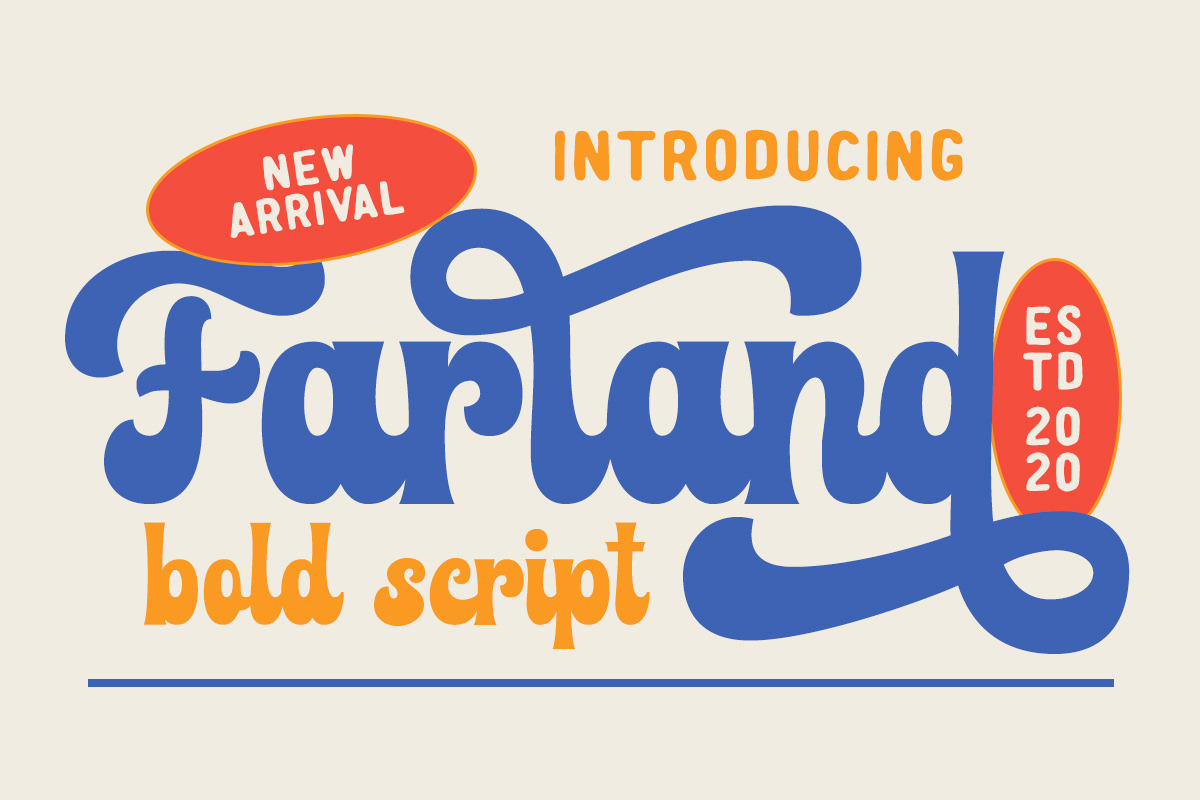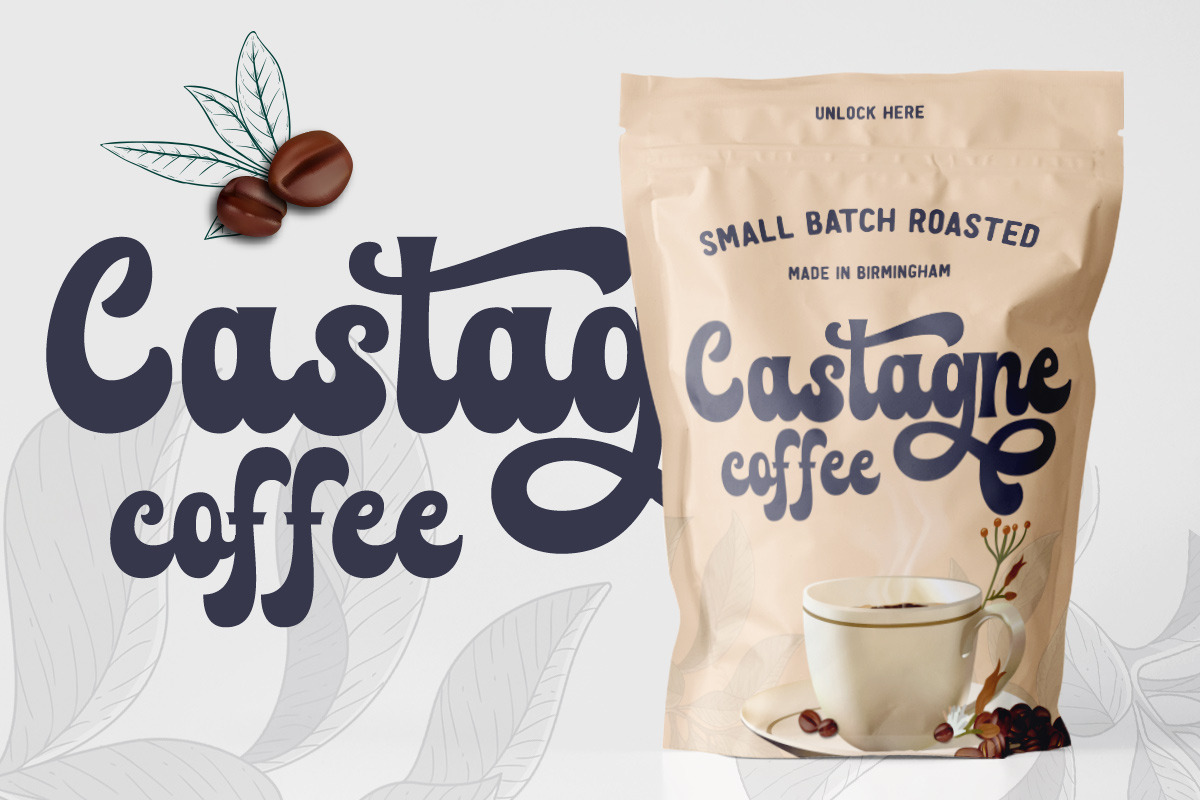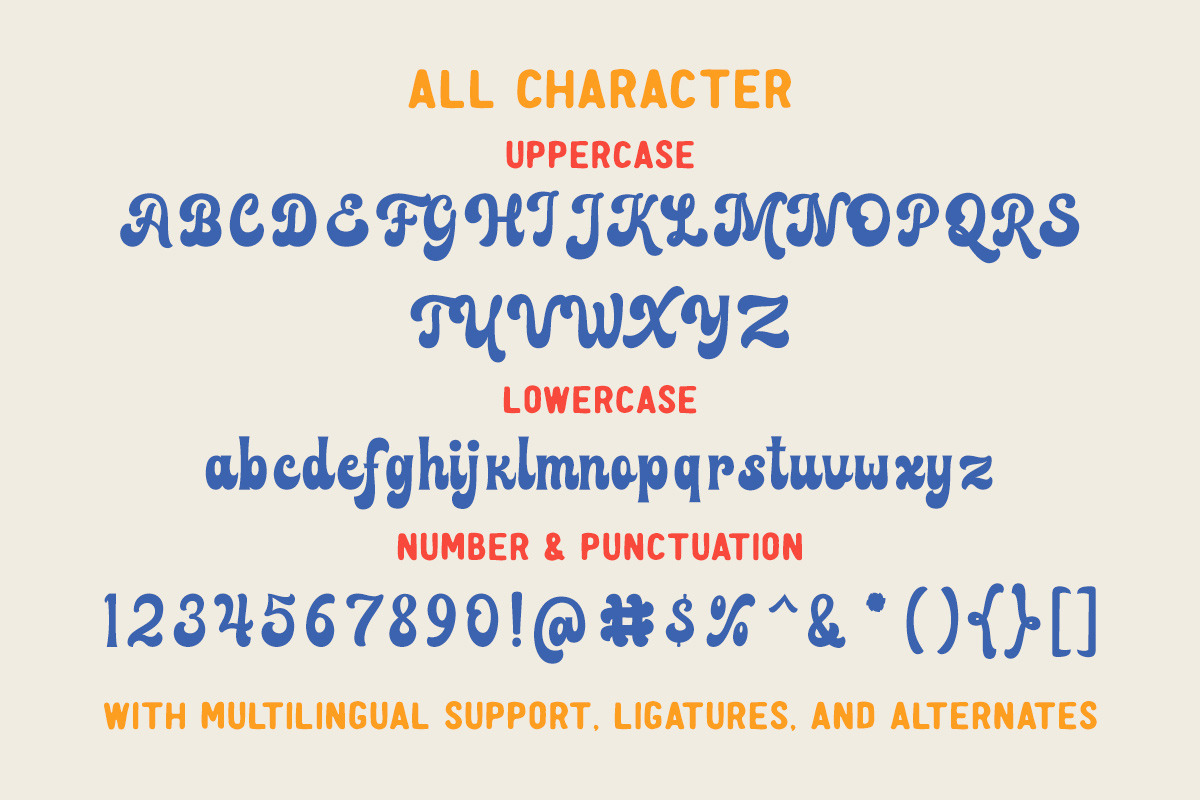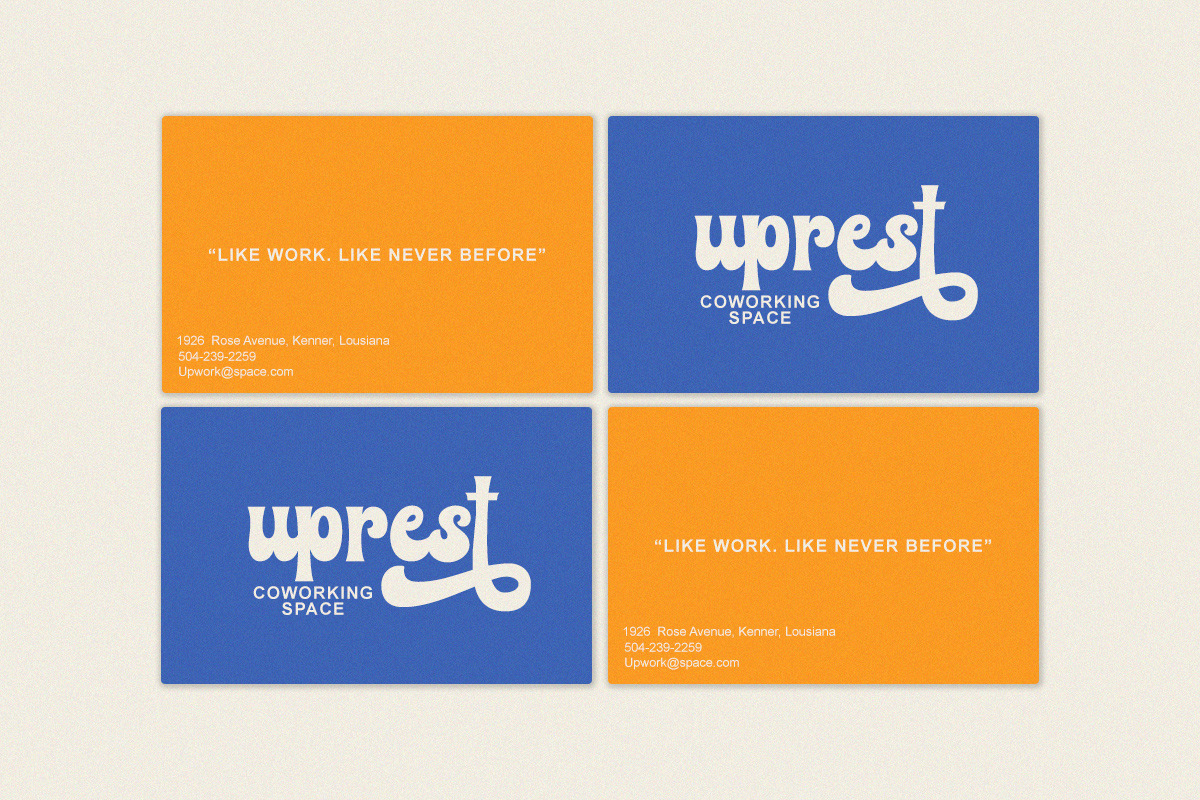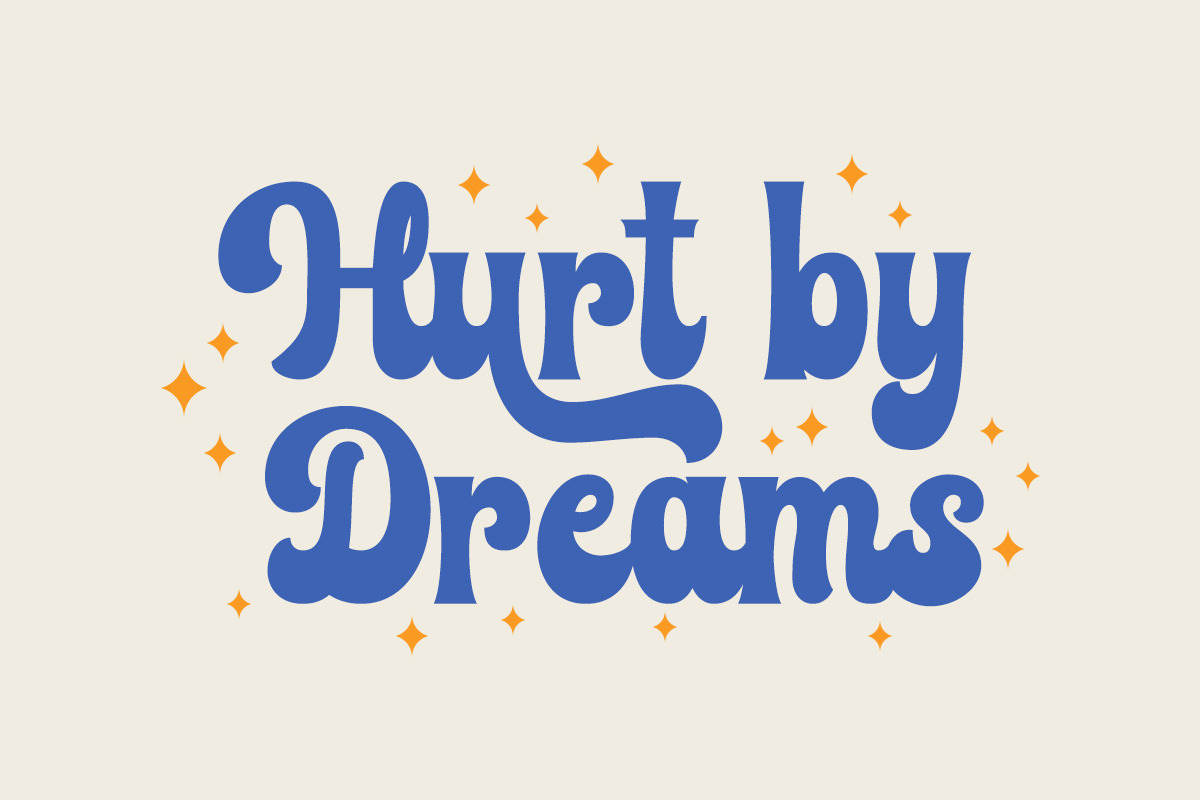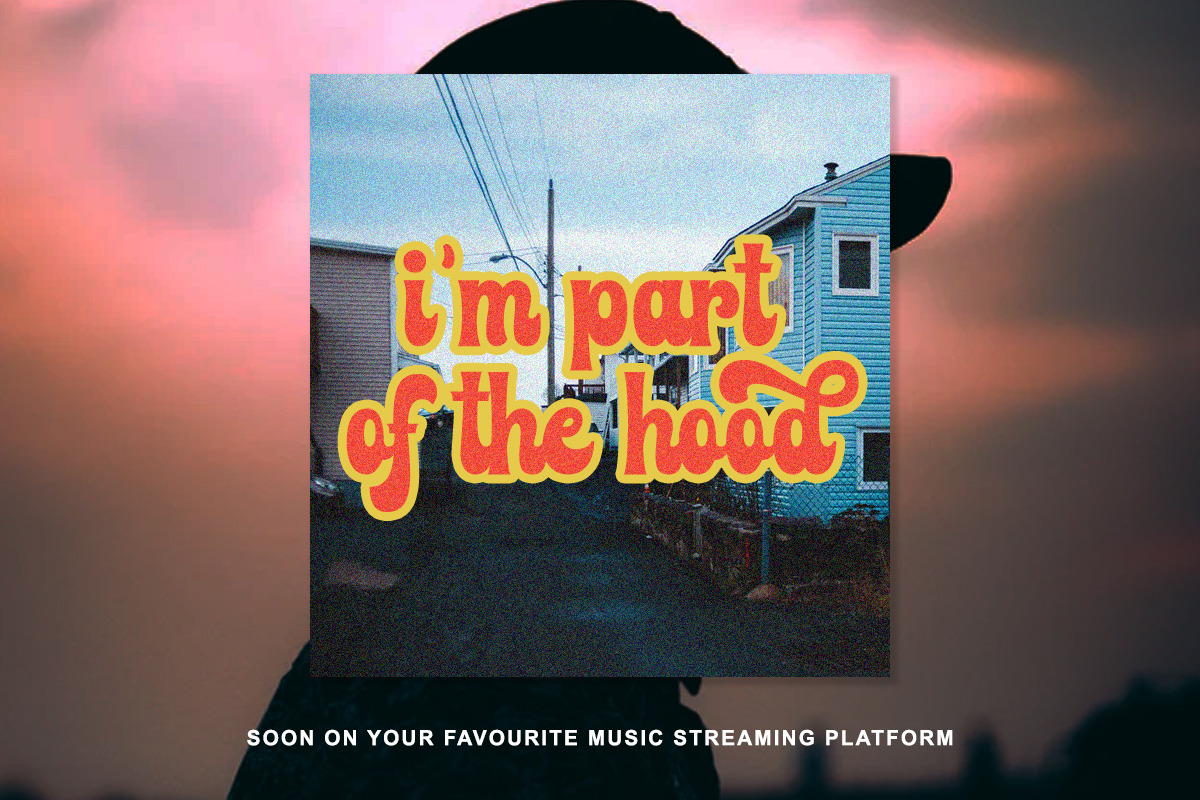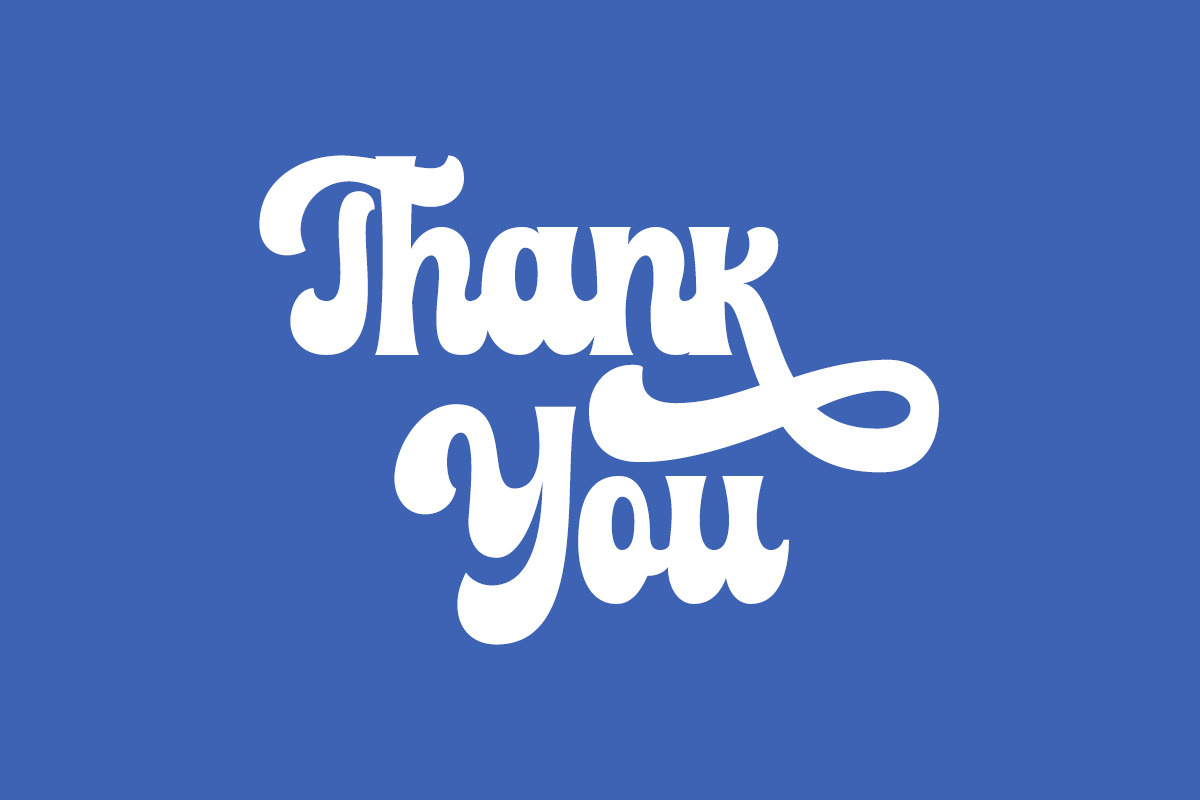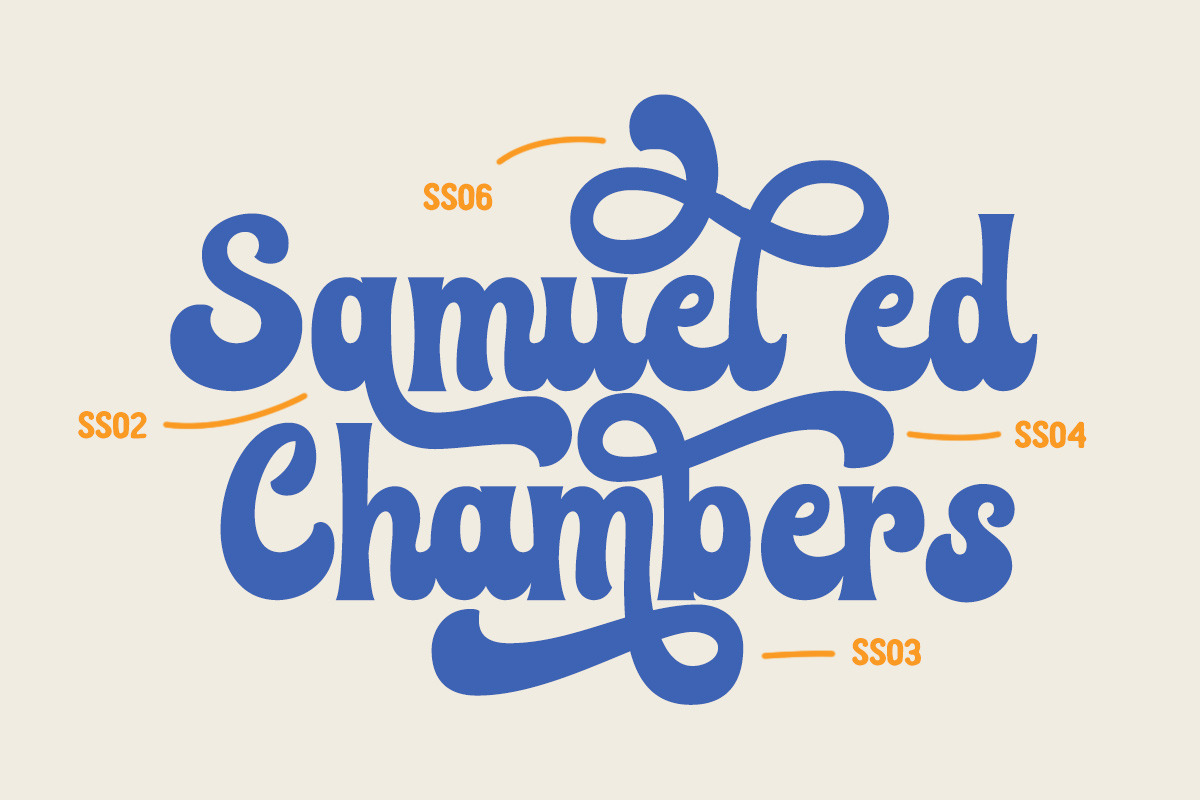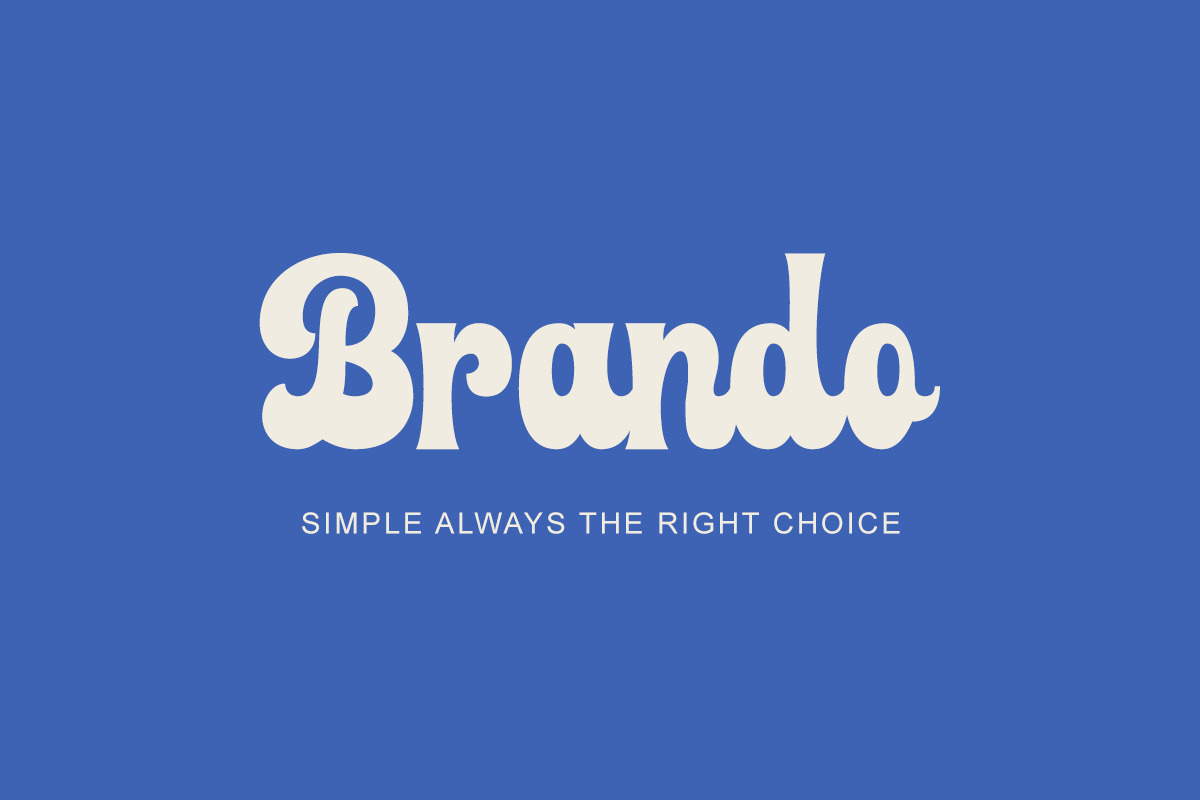
Farland - Bold Script Typeface
Introducing, Farland. a bold script font that carries the vintage feel. This font is perfect for logo, headline, signage, packaging, branding, etc.
- alternates / swashes and ligatures
I love the styling of this typeface but can only give it three stars because the anchor points and curves of the lettering are super wonky. I used this typeface as a base for logo lettering and had to go in and manually redraw a lot of the curves of the lettering. Great style but not a high quality font unfortunately.